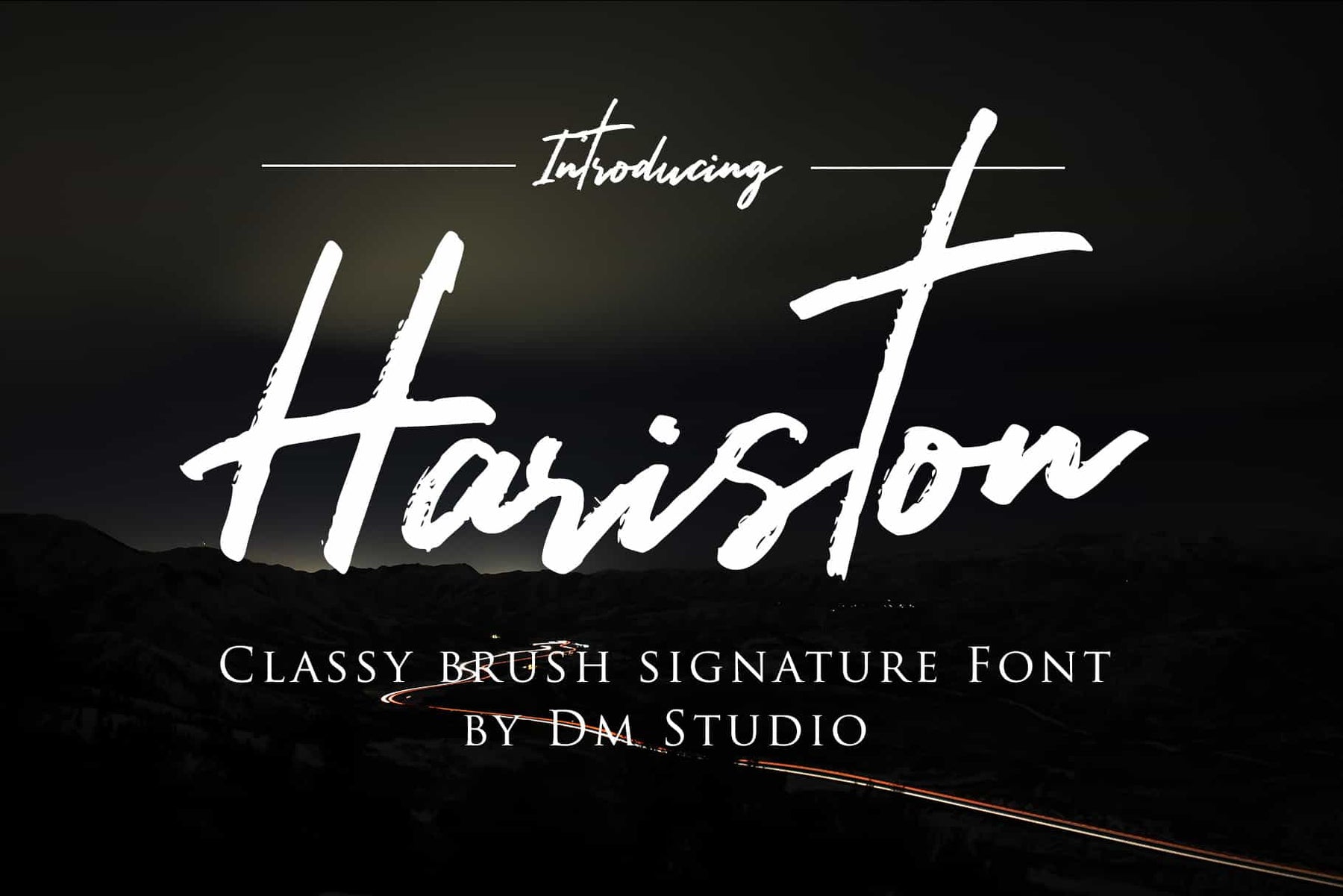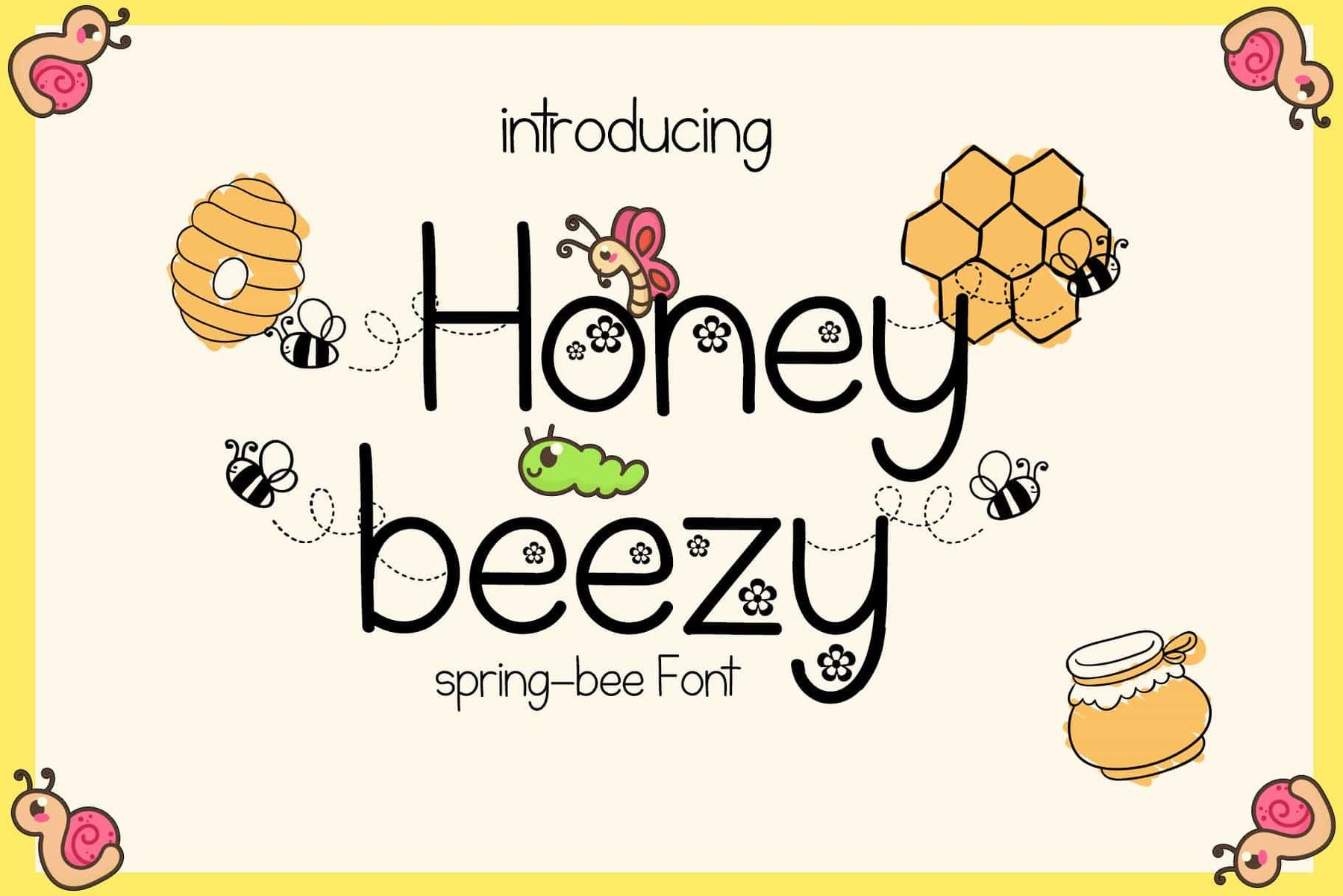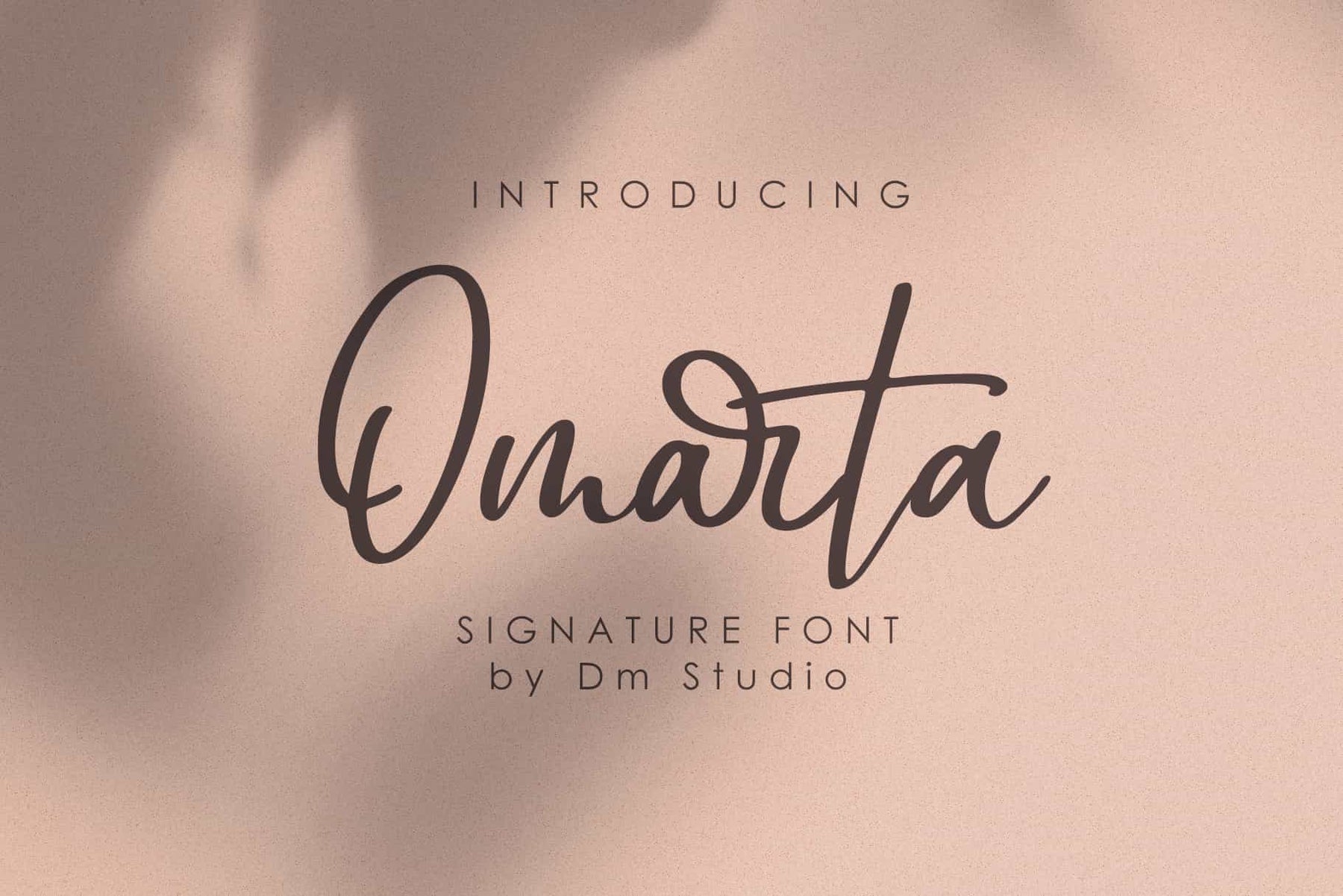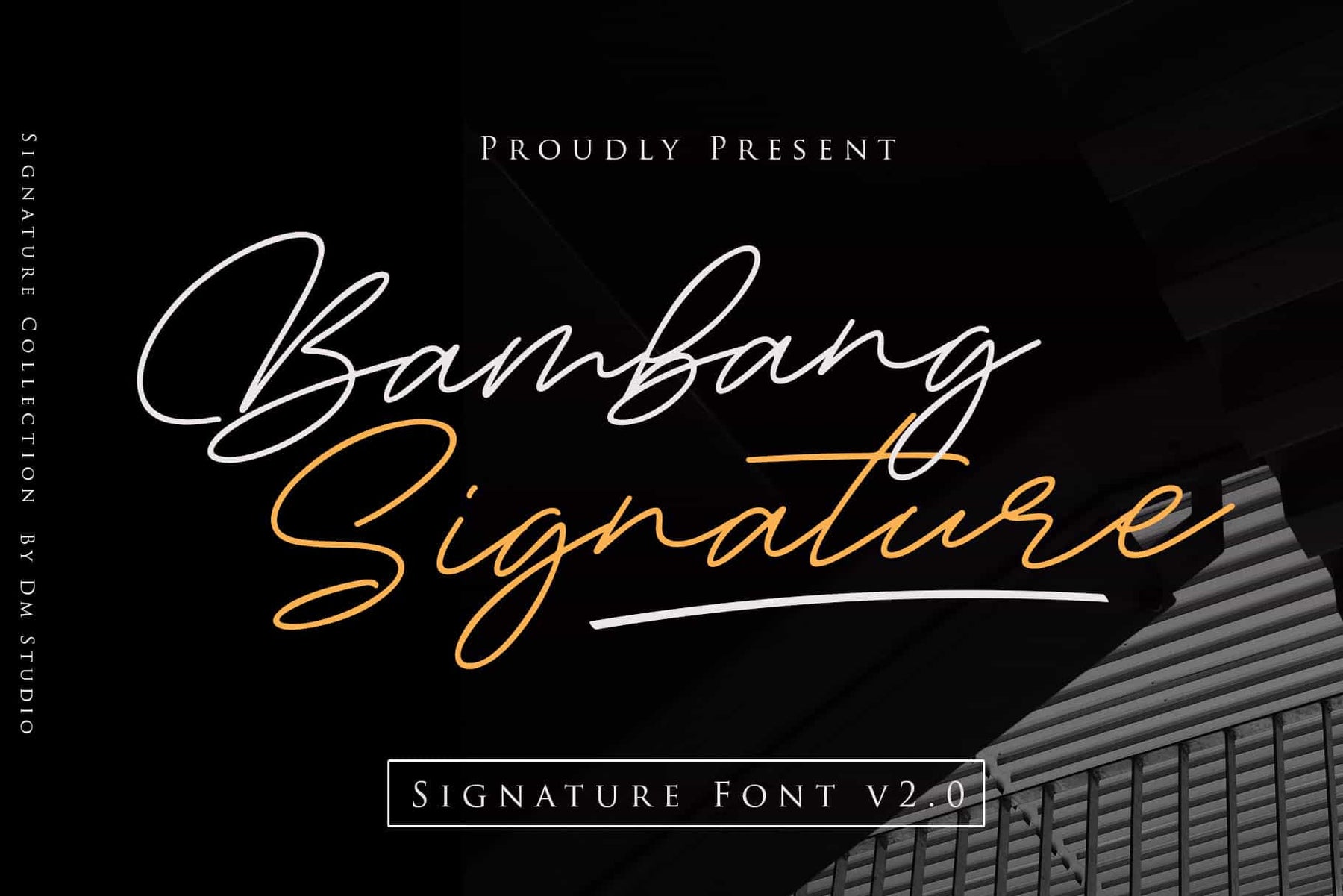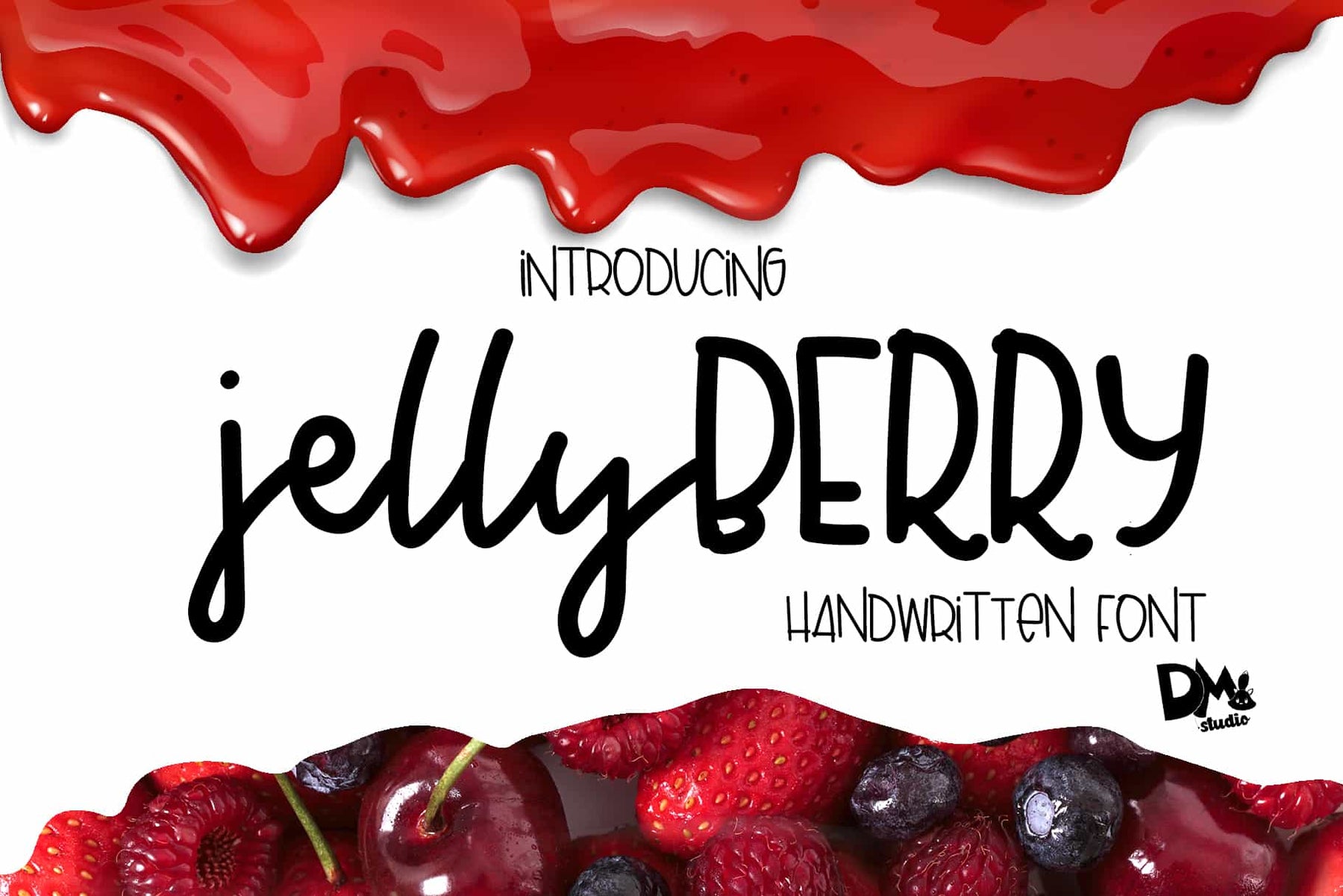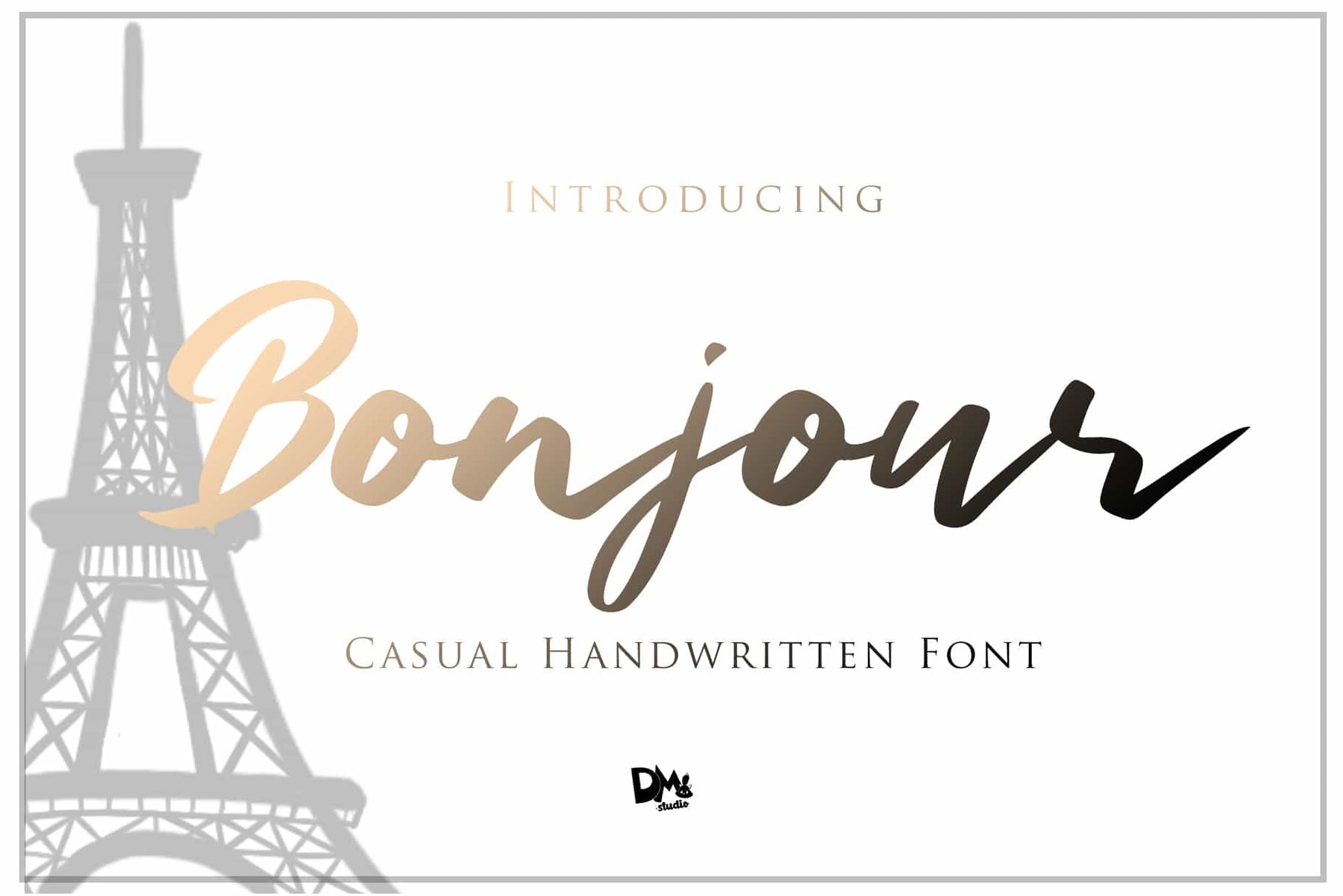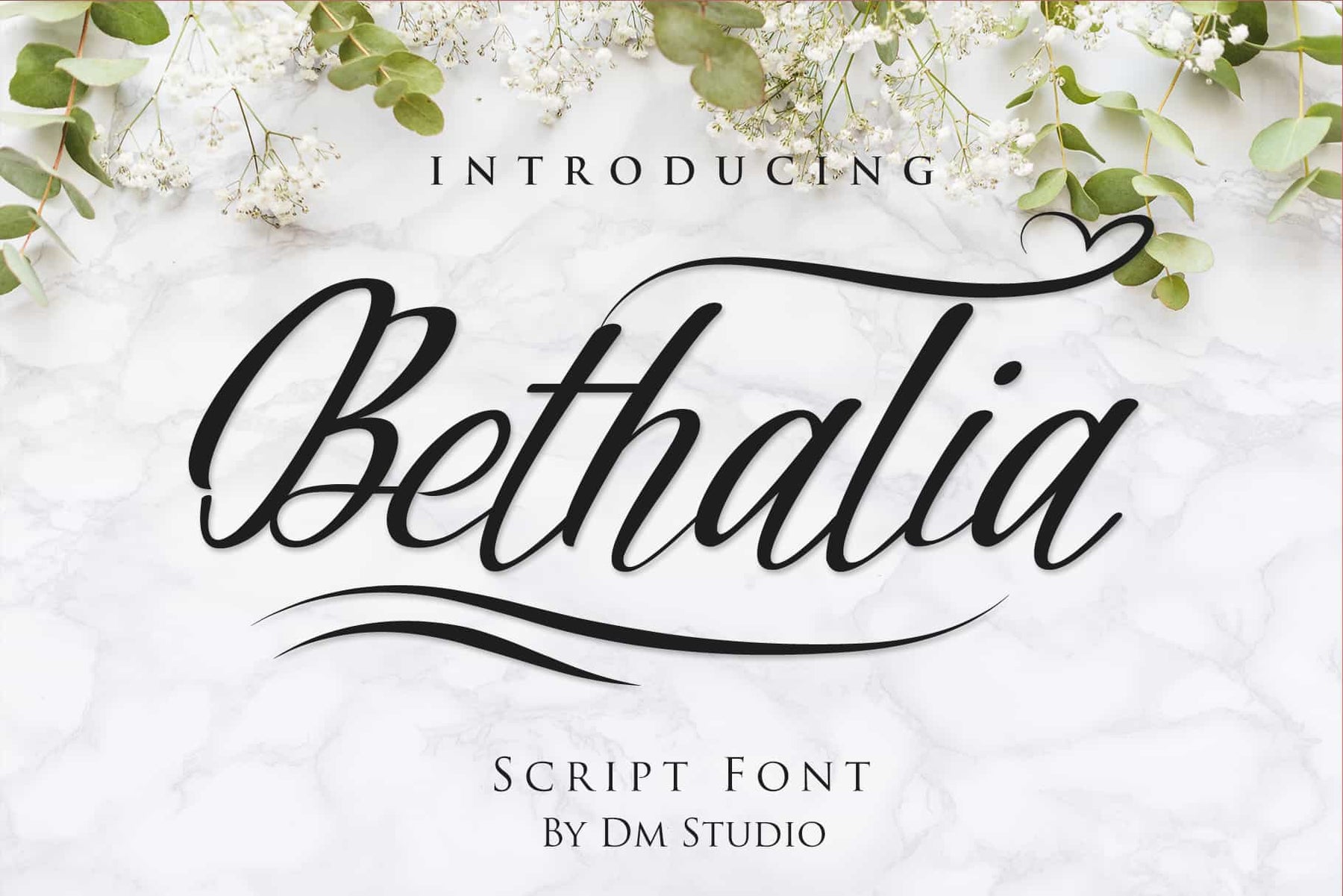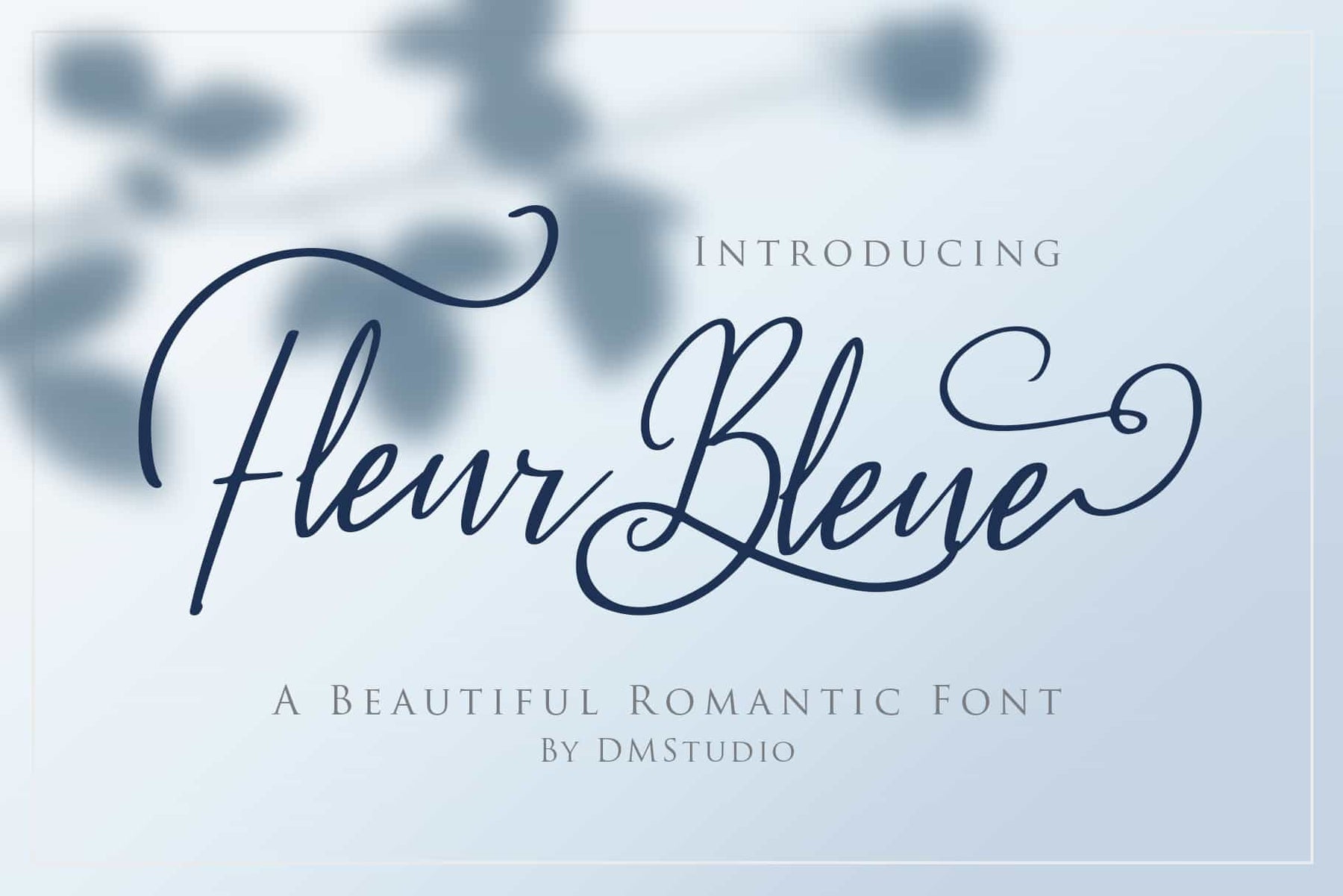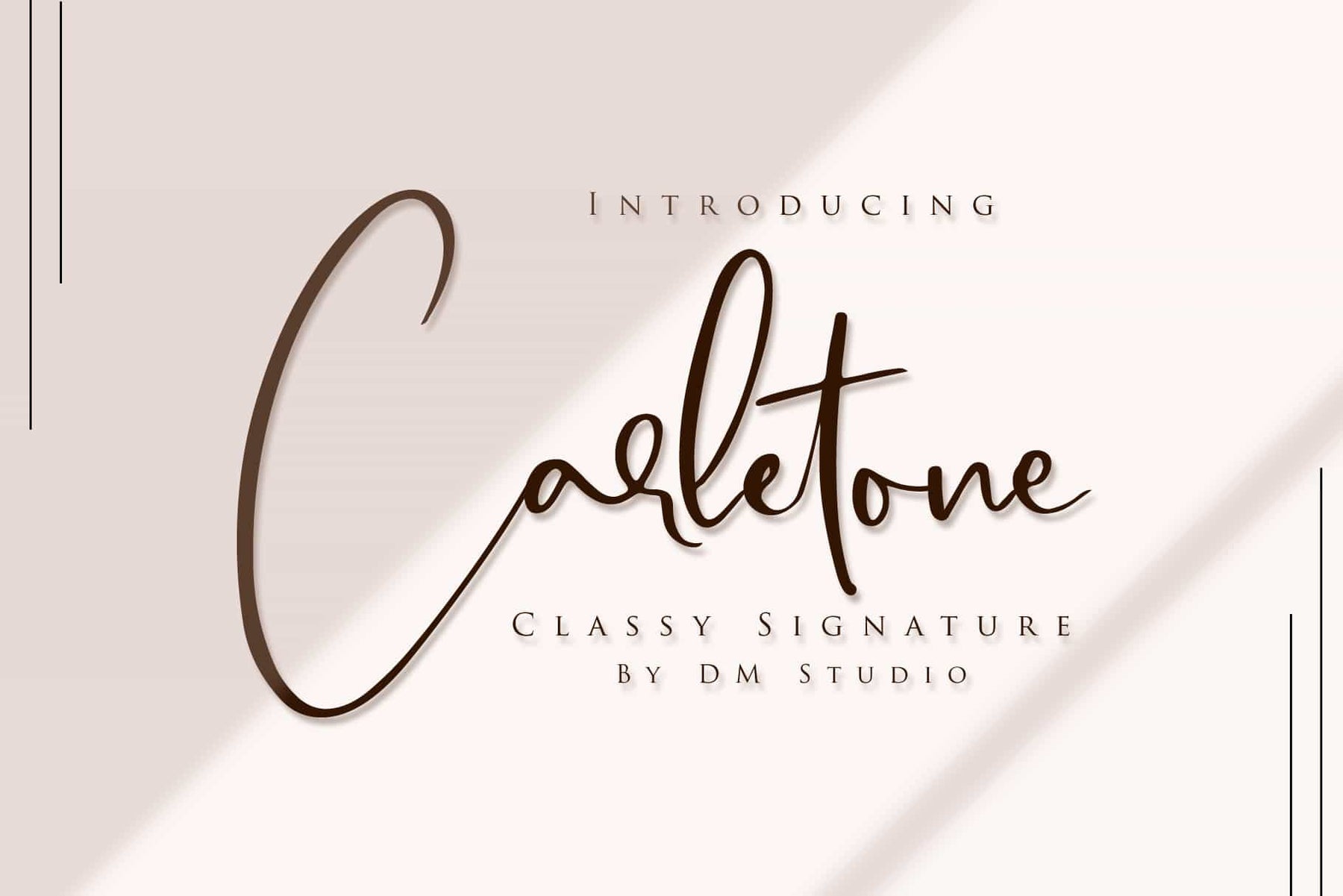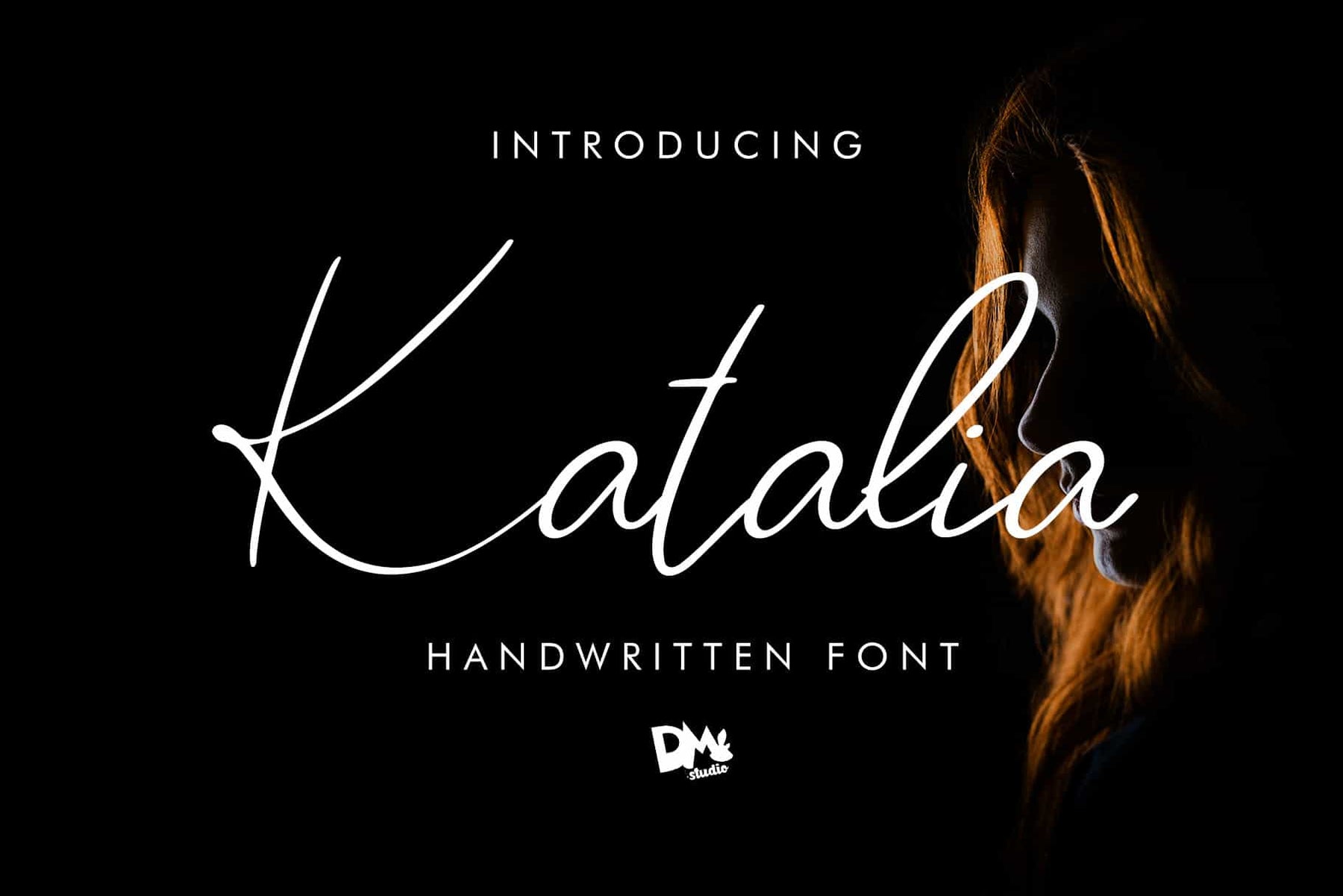
The fonts in this bundle can be used in a wide range of design themes, such as autumn, winter, spring, summer, funny, formal, catchy, girly, and more!
Highlights:
- 58 typeface with 83 fonts
- Many fonts include multiple styles, ligatures, and alternatives
- Comes in unique and quirky styles
Fonts Included In This Bundle:
- Amigos Font
- Angry Monsta Font
- Bambang Signature
- Bambang Signature vol.2
- Beauty Font
- Beauty Signature
- Bethalia Font
- Bigbang Font
- Bloem Garden Font
- Bonjour Font
- Brightside Font
- Brunella Font
- Bubble Mint Font
- Camellia Font
- Carletone Font
- Cllarin Font
- Cupid Love Font
- Cutie Bunnie Font
- Delighted Font
- Estella Font
- Fleur Bleueu Font
- Gothix Font
- Graciast Font
- Hariston Font
- Heart Memory Font
- Hellena FOnt
- Hikaru Font
- Honey Beezy Font
- Hop Hop Bunnie Font
- Hunny Bummy Font
- Janethville Font
- Jelly Berry Font
- Katalia Font
- Lemon Torte Font
- Lovely Font
- Lovely Puppy Font
- Madeleine Font
- Mistletoes Font
- Omarta Font
- Pretty Pumpkin Font
- Prim Rose Font
- Ramstay Font
- Ramtul Font
- Romanttica Font
- Ronalltie Font
- Ruthyne Font
- San Diego Font
- Sanggria Font
- Saxophone Font
- Sethidy Font
- Simplicity Font
- Slubby Slurpie Font
- Sparkling Bright Font
- Spring Font
- St Genoa Font
- Stranger Font
- Swally Font